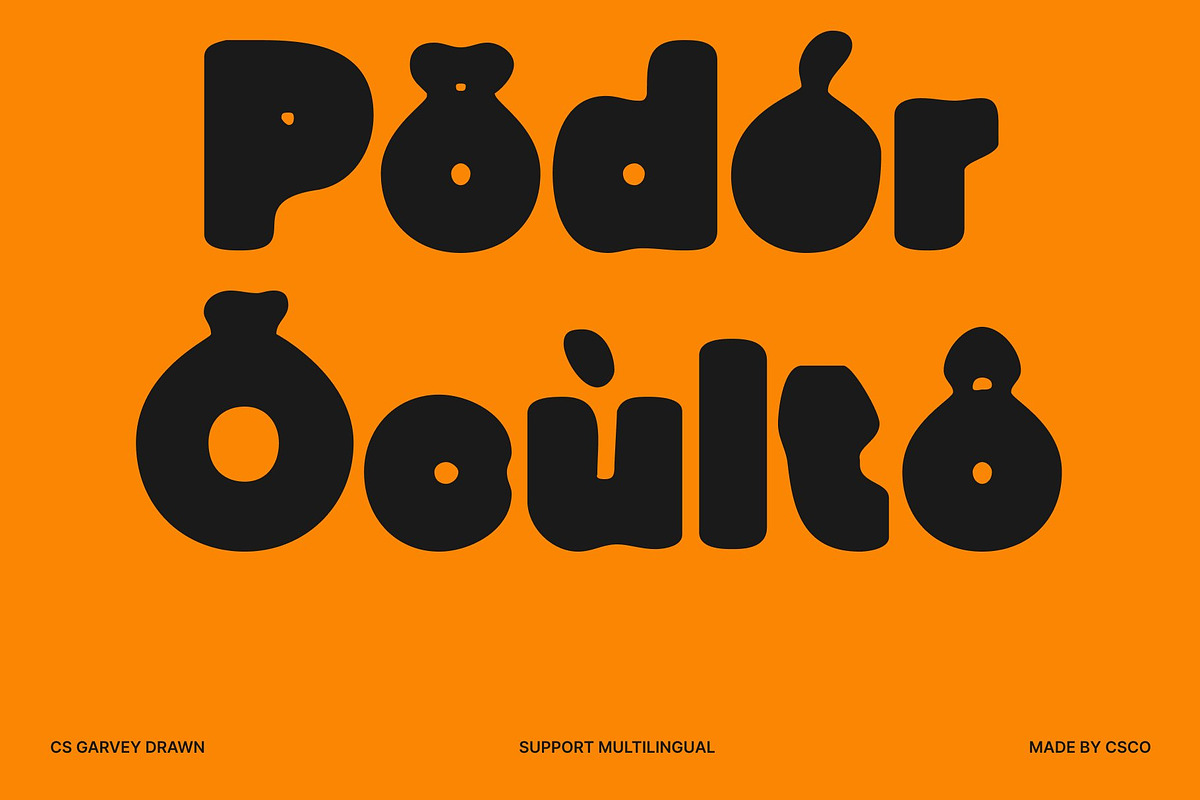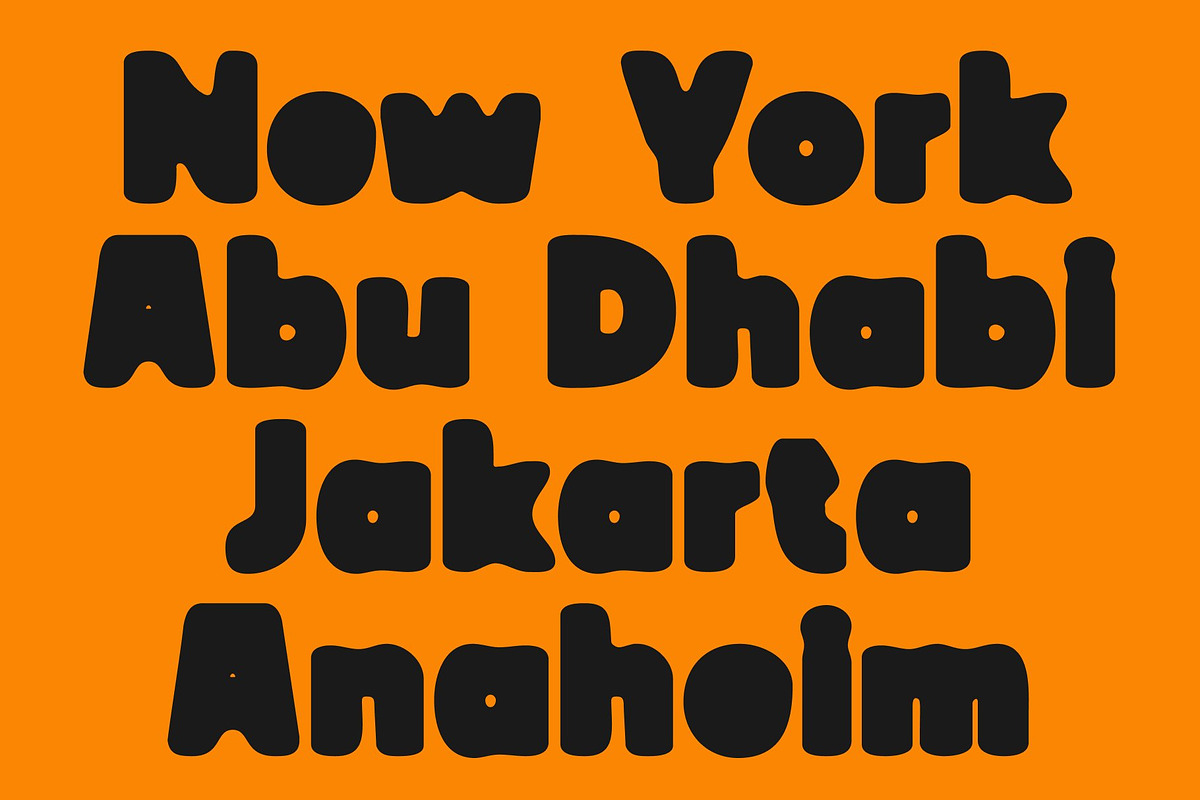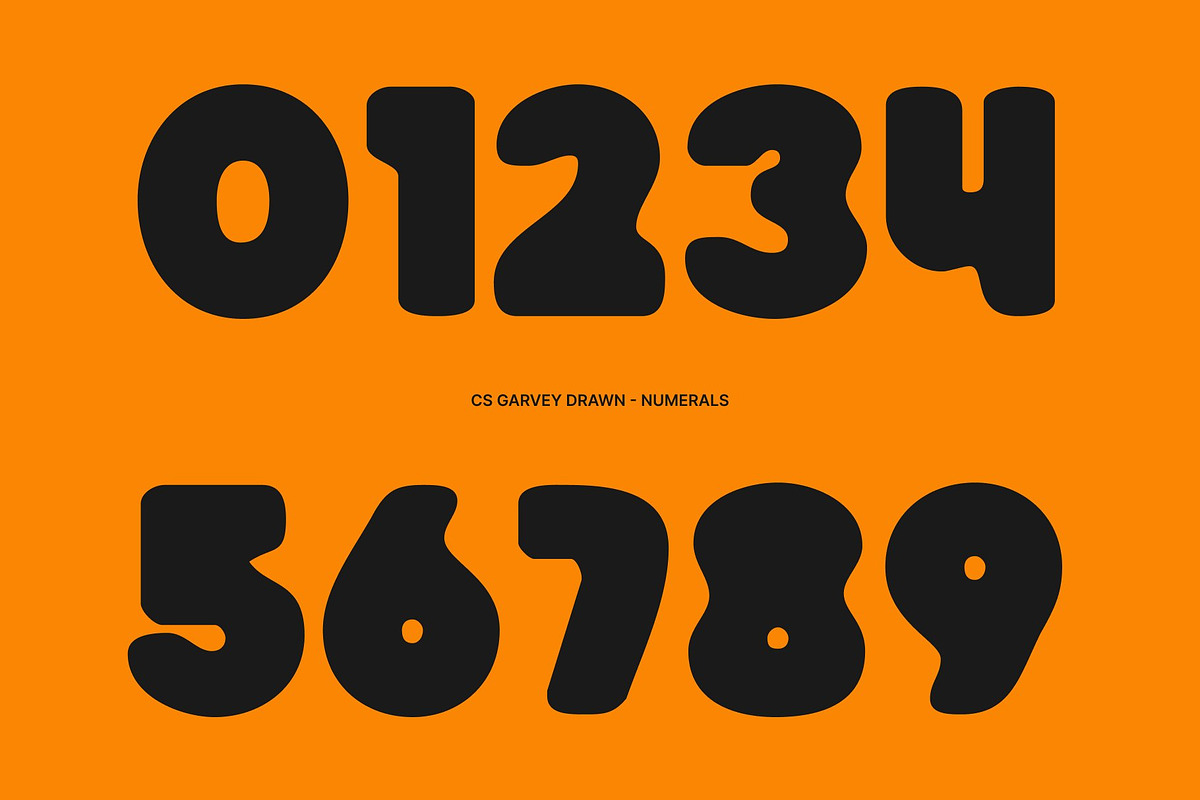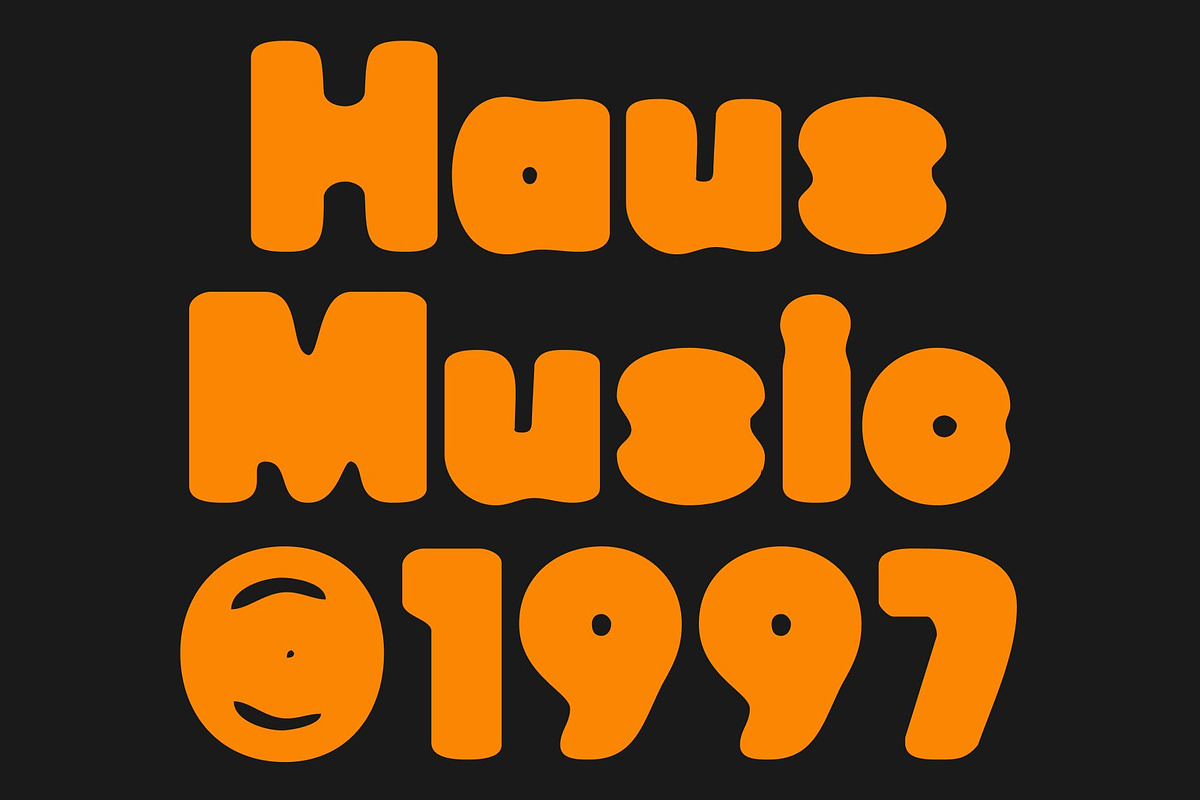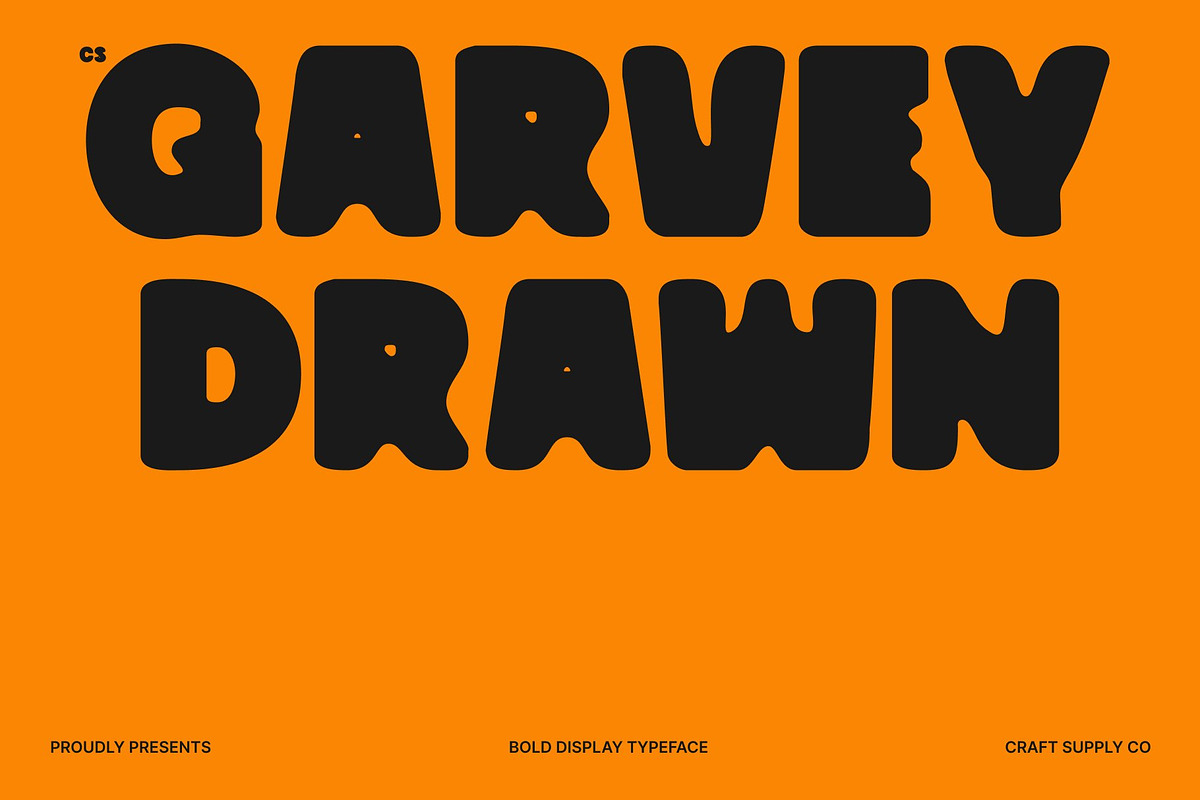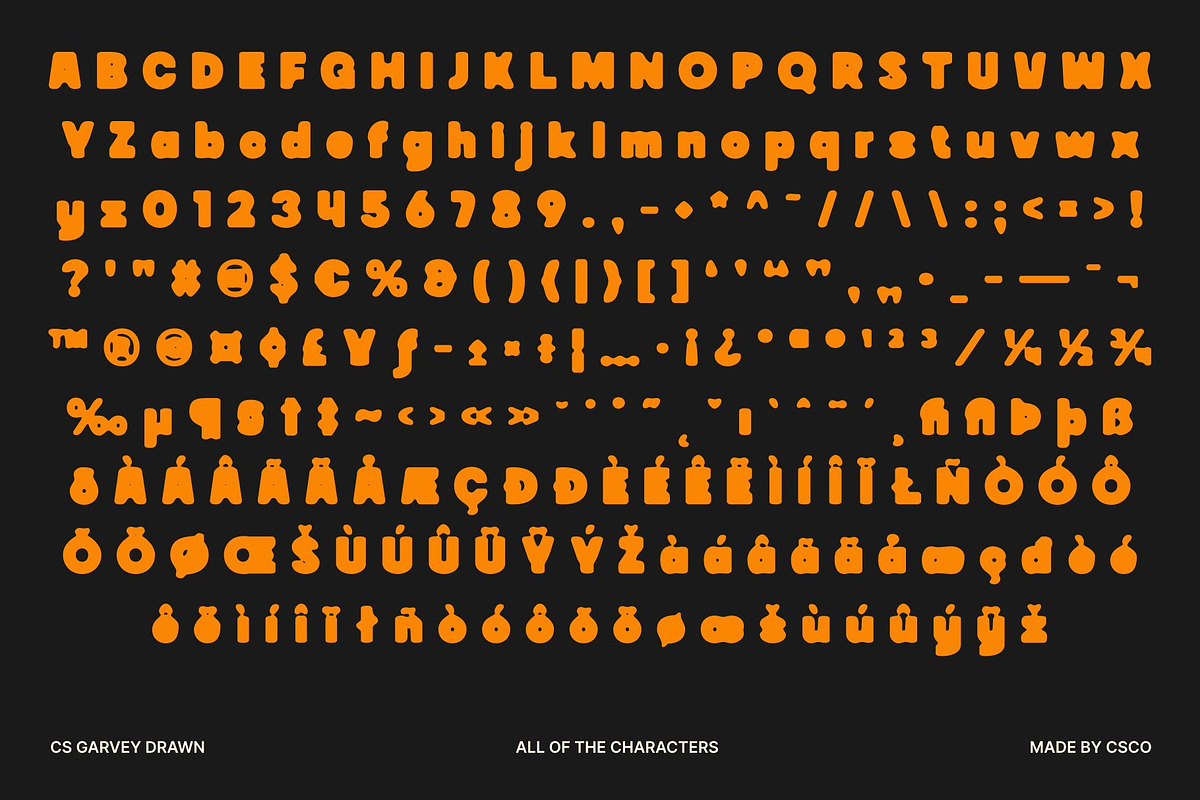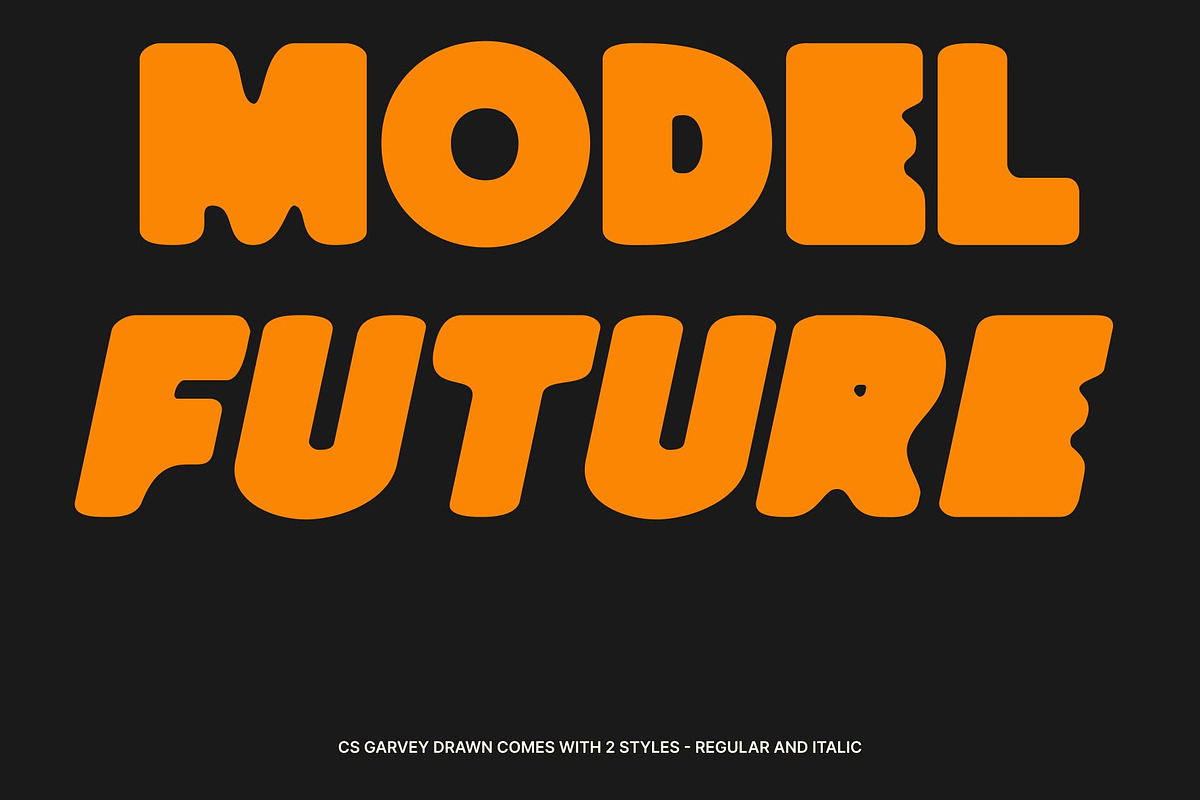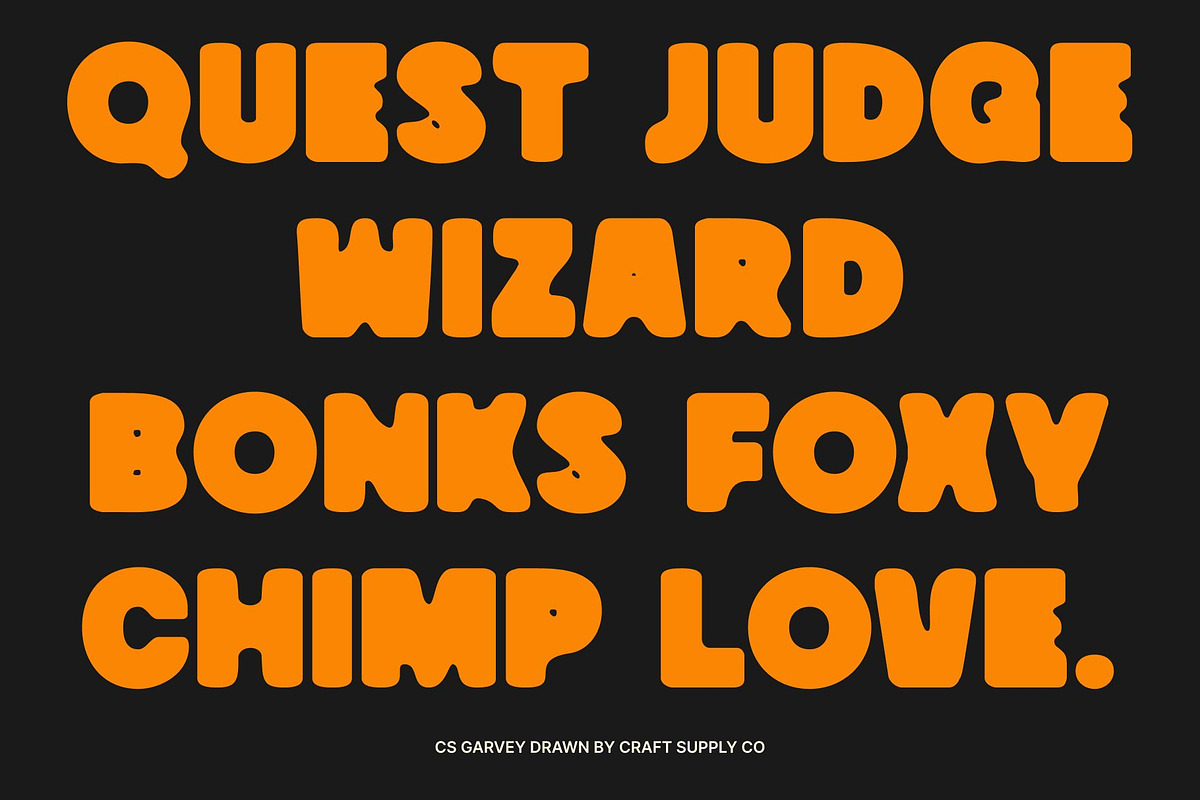
CS Garvey Drawn
CS Garvey Drawn – A Bold, Playful Modern Sans-Serif Font
Strength Meets Playful Expression This is a bold modern sans-serif font that combines geometric precision with vibrant, energetic personality. The drawn effect adds handcrafted charm, giving each letter a lively, artistic touch. Its clean, solid forms maintain strong readability, while quirky proportions inject movement, joy, and uniqueness.
Funky Yet Functional With structure and spontaneity in perfect balance, this font makes a statement without overpowering your design. Its playful character preserves legibility, making it ideal for headlines, logos, or modern branding where impact and charm are equally important. Whether in large display sizes or paired with minimalist layouts, it keeps typography bold, dynamic, and contemporary.
Perfect for Youthful, Creative Projects This font shines in expressive, youth-driven visuals from posters and editorial layouts to fashion branding, product packaging, and social media content. Its fun yet balanced design sets the perfect tone for projects aiming to be modern, joyful, and engaging.
A Confident Voice With Personality More than just bold, this font communicates with confidence, friendliness, and character. It helps your designs stand out, whether launching a trendy lifestyle brand or crafting a striking visual campaign, ensuring your typography is lively, creative, and unforgettable.